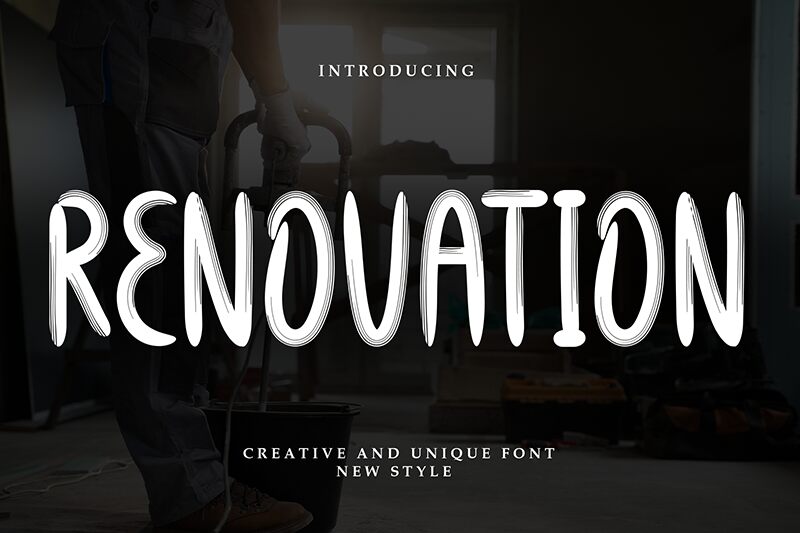
Renovation font by Andi Moz is a free brush font with a modern appeal. This engaging typeface is dynamic, energetic, creative, impactful, and expressive. It carries a contemporary aesthetic that is bold and captivating, making it easily adaptable to several design projects.
This is a sweet and friendly handwritten display font. Cute and fun, this font is ideal for writing wedding invitations, cards, or any other design that needs a playful touch.